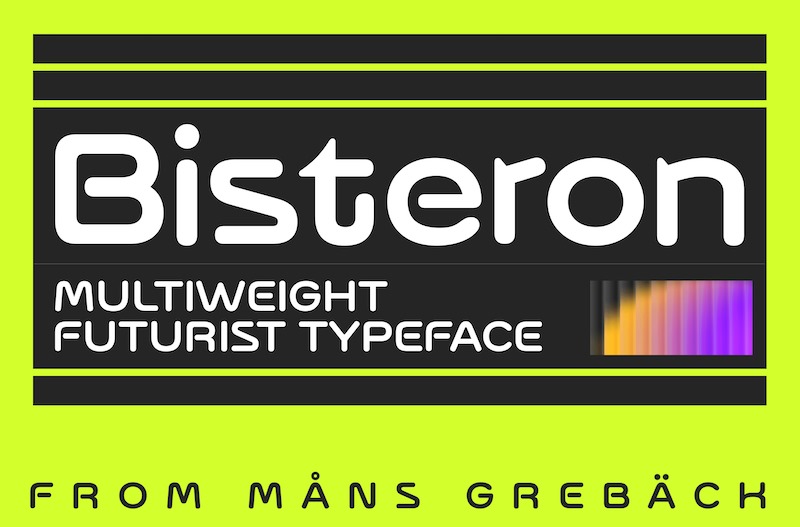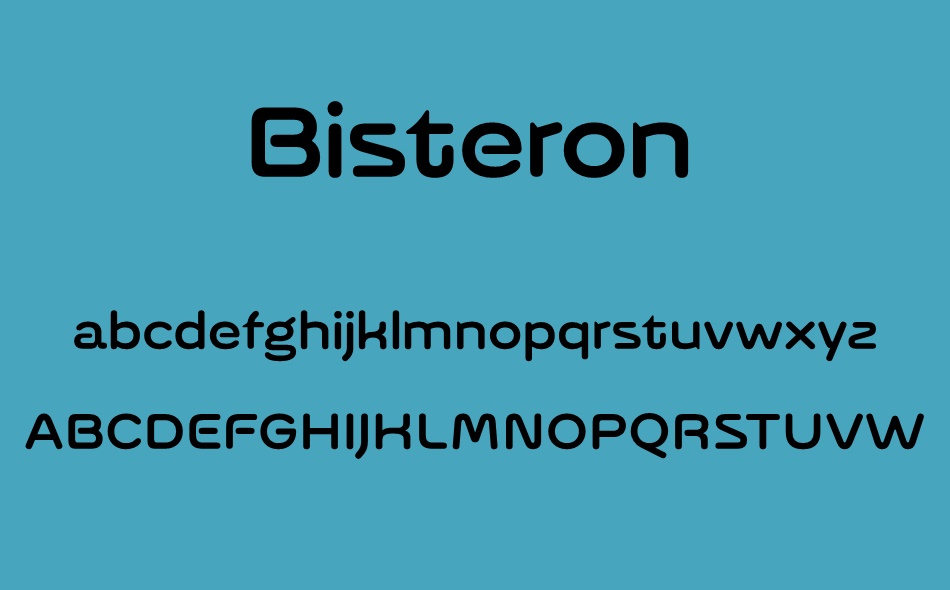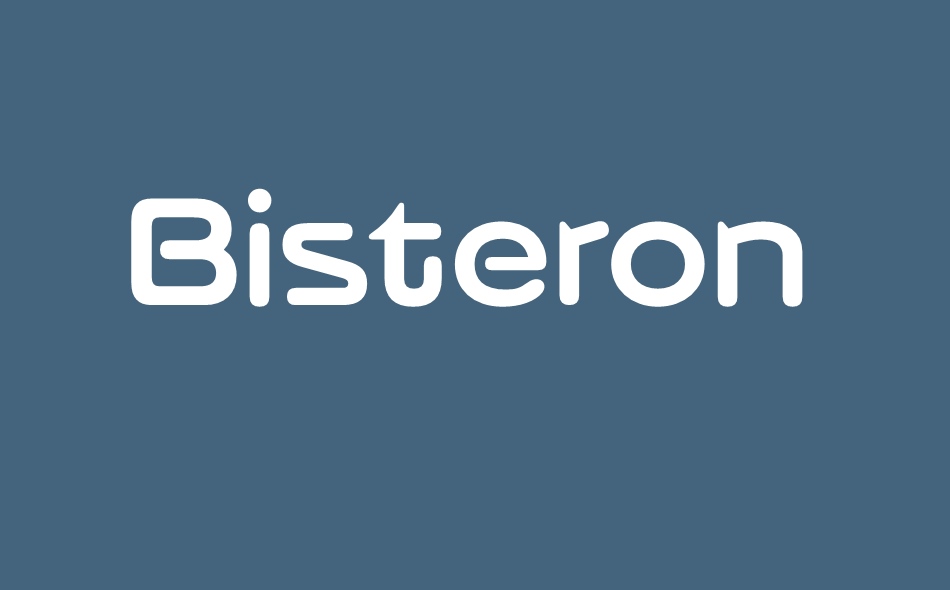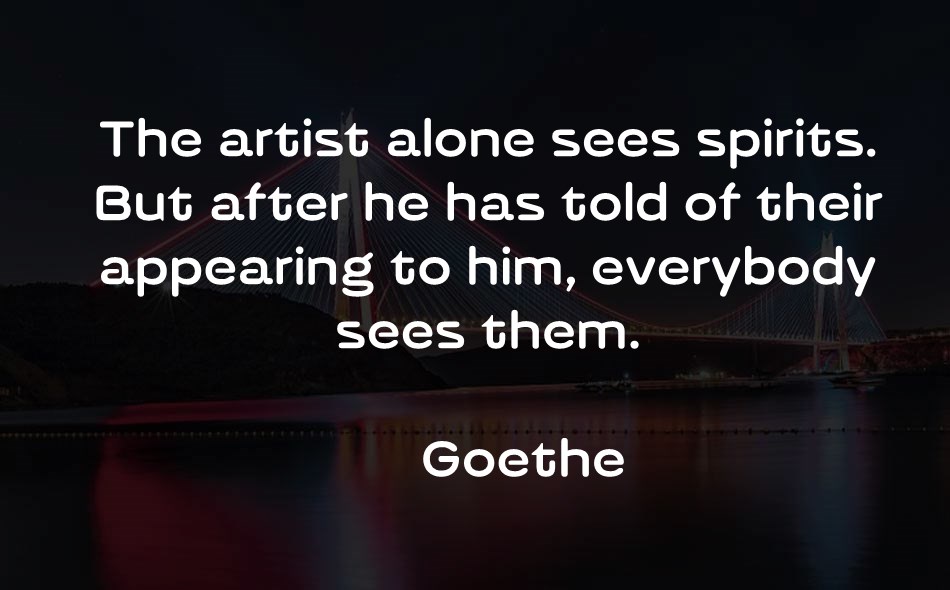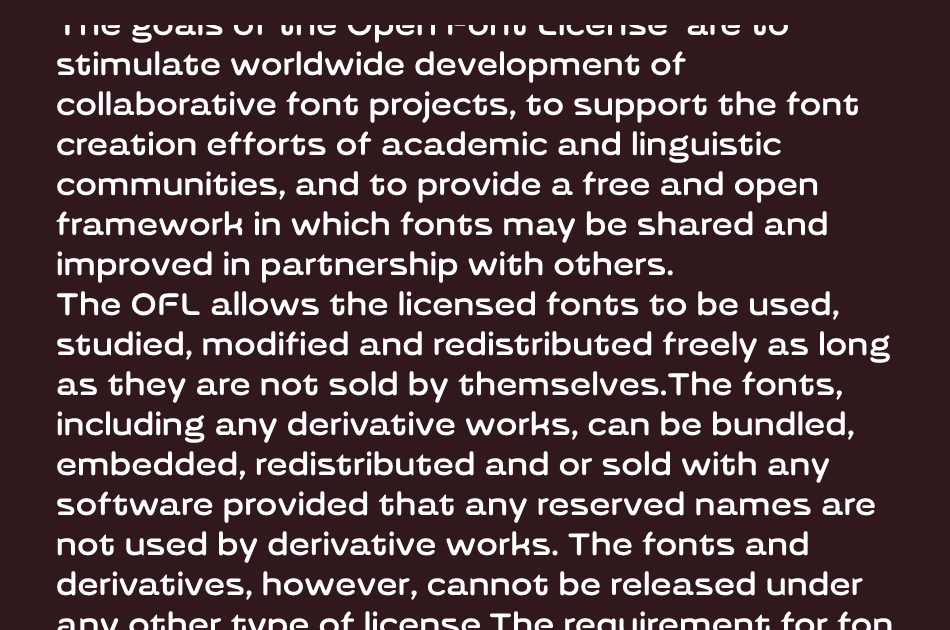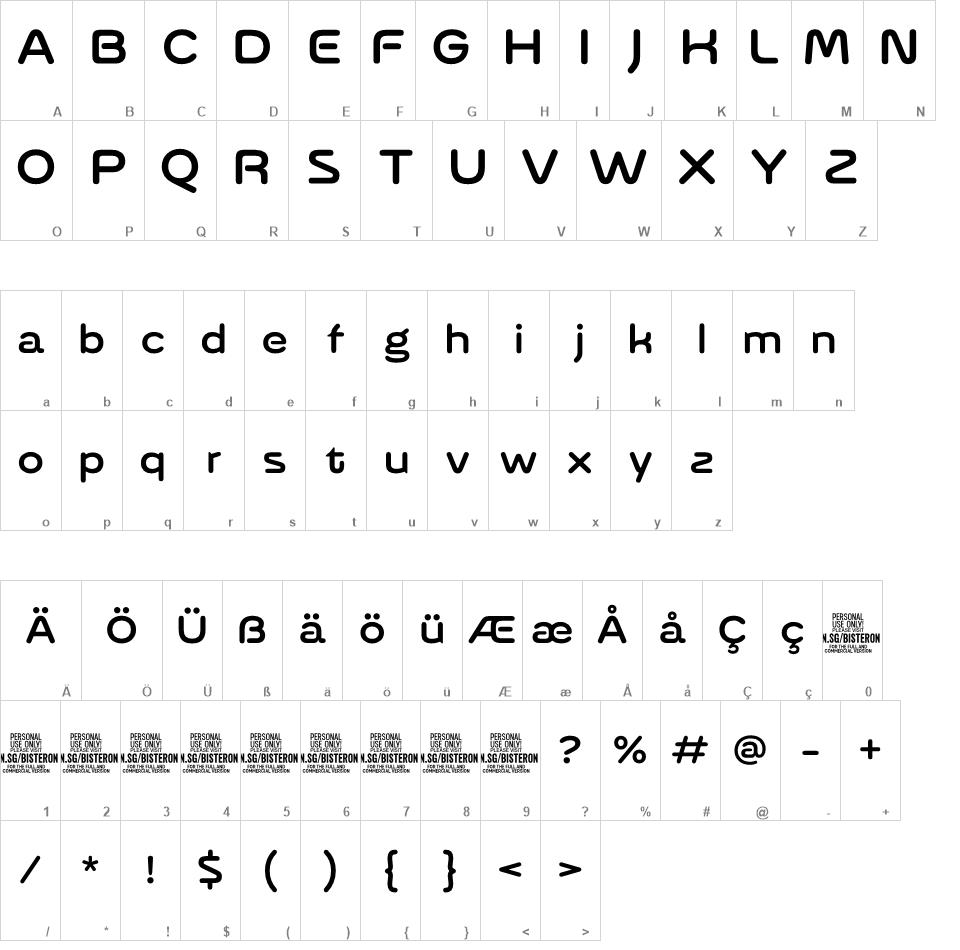
Bisteron font
Bisteron is a clean futurist typeface with a rounded, technical feel and a calm confidence in its shapes.
Built around soft corners and controlled geometry, it balances friendliness with precision.
Bisteron is a clean futurist typeface with a rounded, technical feel and a calm confidence in its shapes.
Built around soft corners and controlled geometry, it balances friendliness with precision. The letterforms feel engineered rather than drawn, giving text a sense of structure and motion without becoming cold. Its multiweight family allows the tone to shift from light and airy to solid and assertive, while the italics introduce a subtle forward lean that feels smooth rather than aggressive.
Bisteron was designed to be flexible and readable, working just as well in short statements as in longer passages. It feels at home in modern interfaces, experimental visuals, and imagined futures where technology is approachable and thoughtfully designed.
The font is built with advanced OpenType functionality and guaranteed top-notch quality, containing stylistic and contextual alternates, ligatures and more automatic and manual features; all to give you full control and customizability.
It has extensive lingual support, covering all Latin-based languages, from North Europa to South Africa, from America to South-East Asia. It contains all characters and symbols you'll ever need, including all punctuation and numbers.
Bisteron is a personal exploration of soft futurism, focusing on clarity, rhythm, and balance. It avoids sharp edges in favor of smooth transitions. The goal was to create a typeface that feels reliably human, even when placed in highly technical settings.